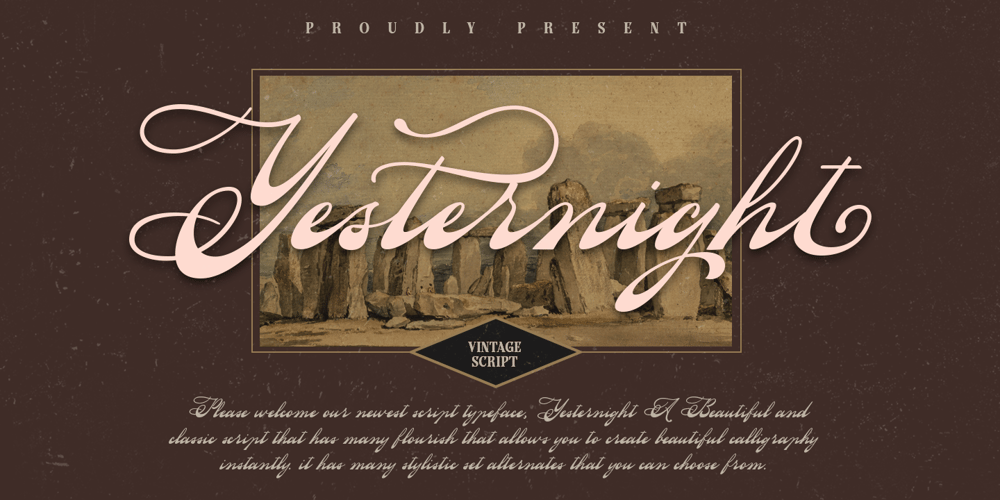
Yesternight Font Family was designed by Hendry Juanda and published by Letterhend. Yesternight contains 1 styles and family package options. Introducing, Yesternight, A Vintage Script. This typeface has nostalgic feel because of its style, so the font is really match for your project with retro / vintage theme. The swashes make this typeface unique even more so you can use it to create beautiful vintage lettering in a sec.This font perfectly made to be applied especially in logo, and the other various formal forms such as invitations, labels, logos, magazines, books, greeting / wedding cards, packaging, fashion, make up, stationery, novels, labels or any type of advertising purpose.Features : uppercase & lowercase numbers and punctuation multilingual ligatures alternates swashes PUA encoded We highly recommend using a program that supports OpenType features and Glyphs panels like many of Adobe apps and Corel Draw, so you can see and access all Glyph variations.